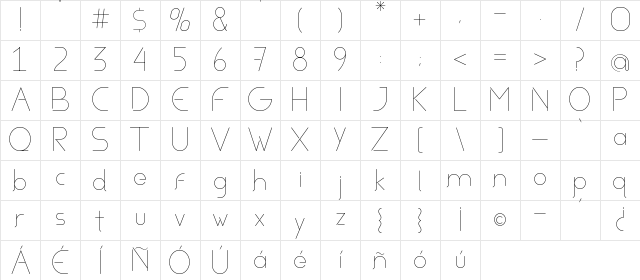
Aviel Light Free Font
Aviel Light
Foundry: www.asleycruz.com
Designer: Asley Cruz
Aviel Family
Aviel Light
Design Context for Aviel
Aviel is a composed and adaptable typeface that performs quietly and consistently across a wide range of design contexts. Its slender proportions lend an understated elegance to any composition.